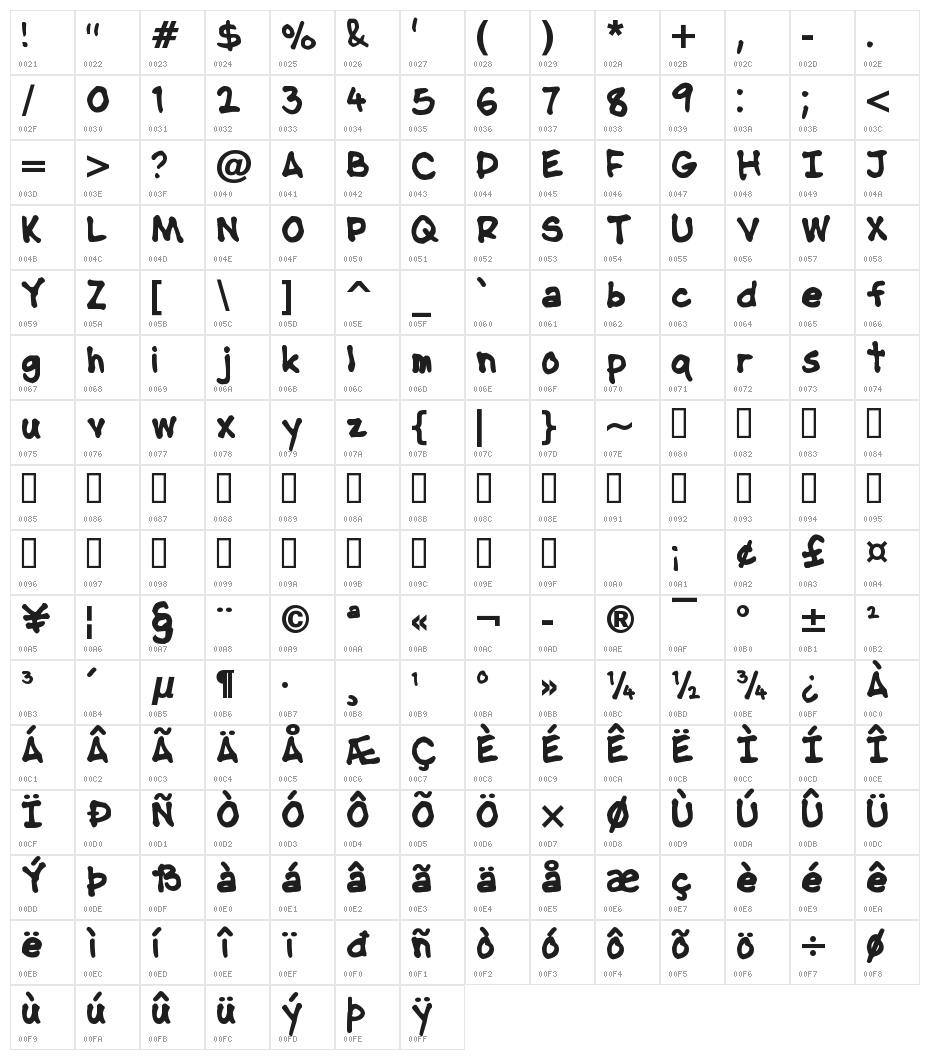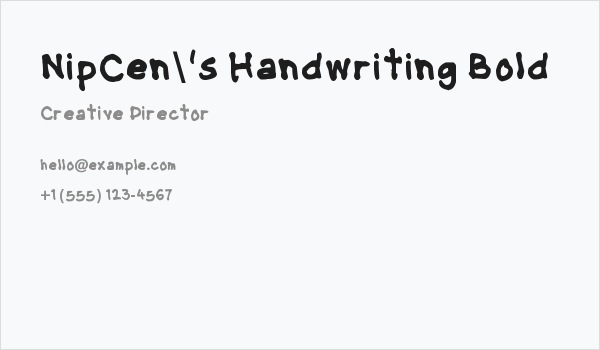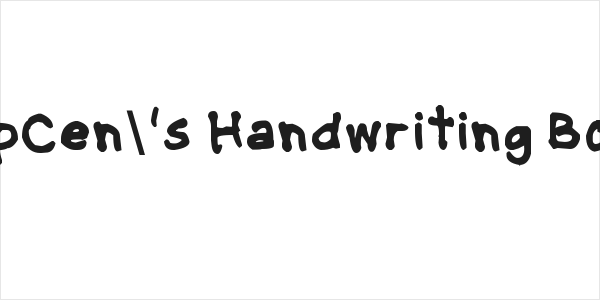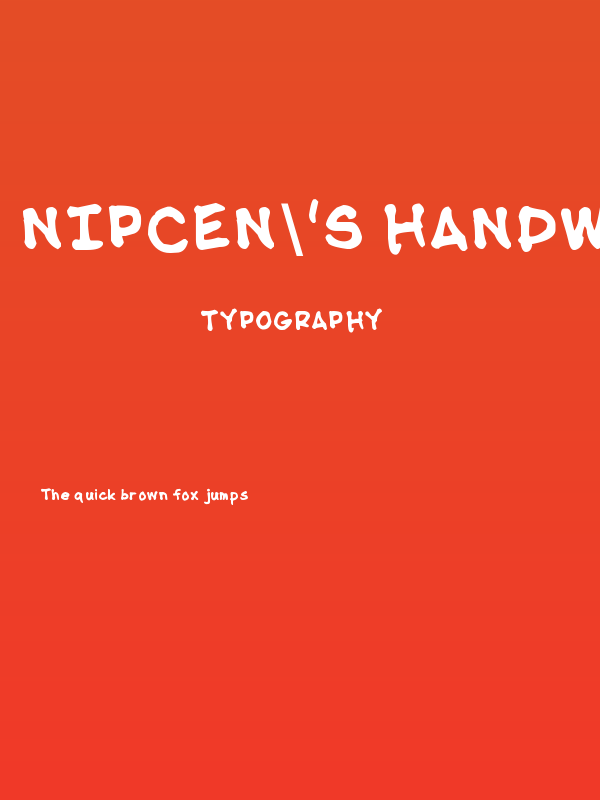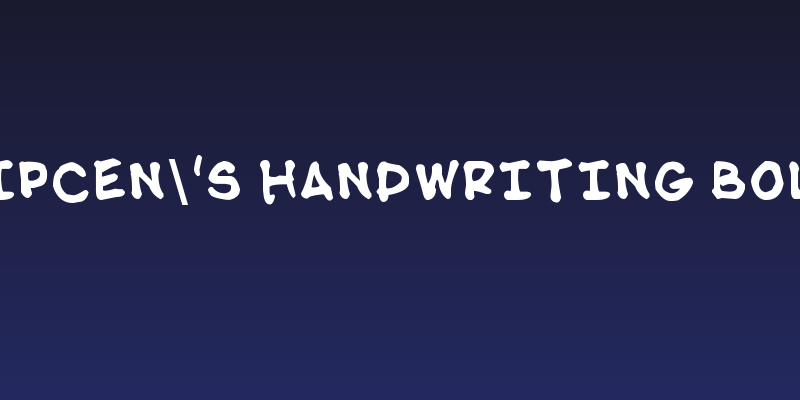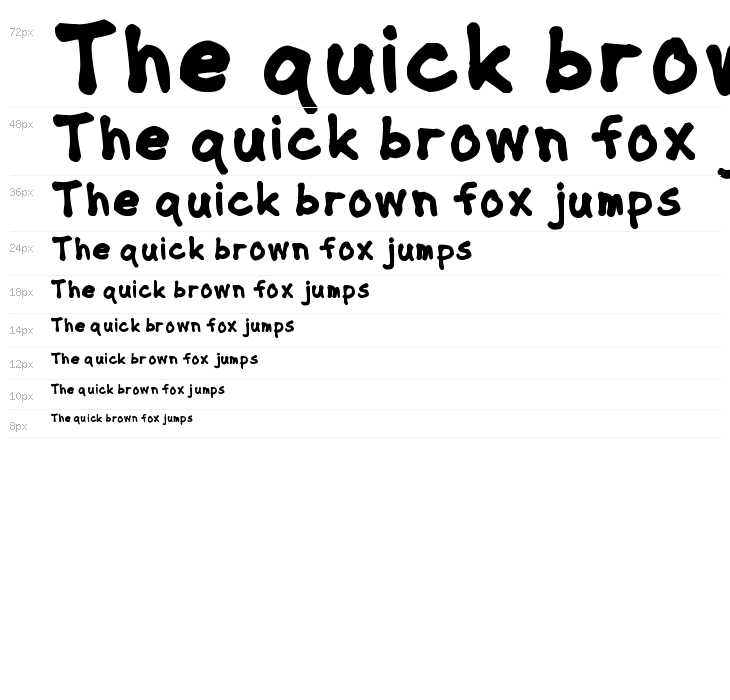
NipCen's Handwriting Bold Font
NipCen's Handwriting Bold Description
This font features a playful and bold handwritten style, characterized by its irregular and organic letterforms. The strokes are thick and rounded, giving it a casual and friendly appearance. Each character has a unique, slightly wobbly shape, contributing to its informal and approachable look. The font maintains a consistent weight throughout, with a medium contrast in stroke thickness. It includes a full set of uppercase and lowercase letters, numerals, and a variety of special characters, making it versatile for different uses.
| Proposed Projects | Ideal for children's books, playful branding, casual invitations, and creative posters. |